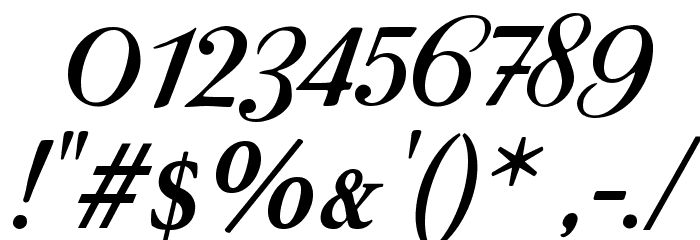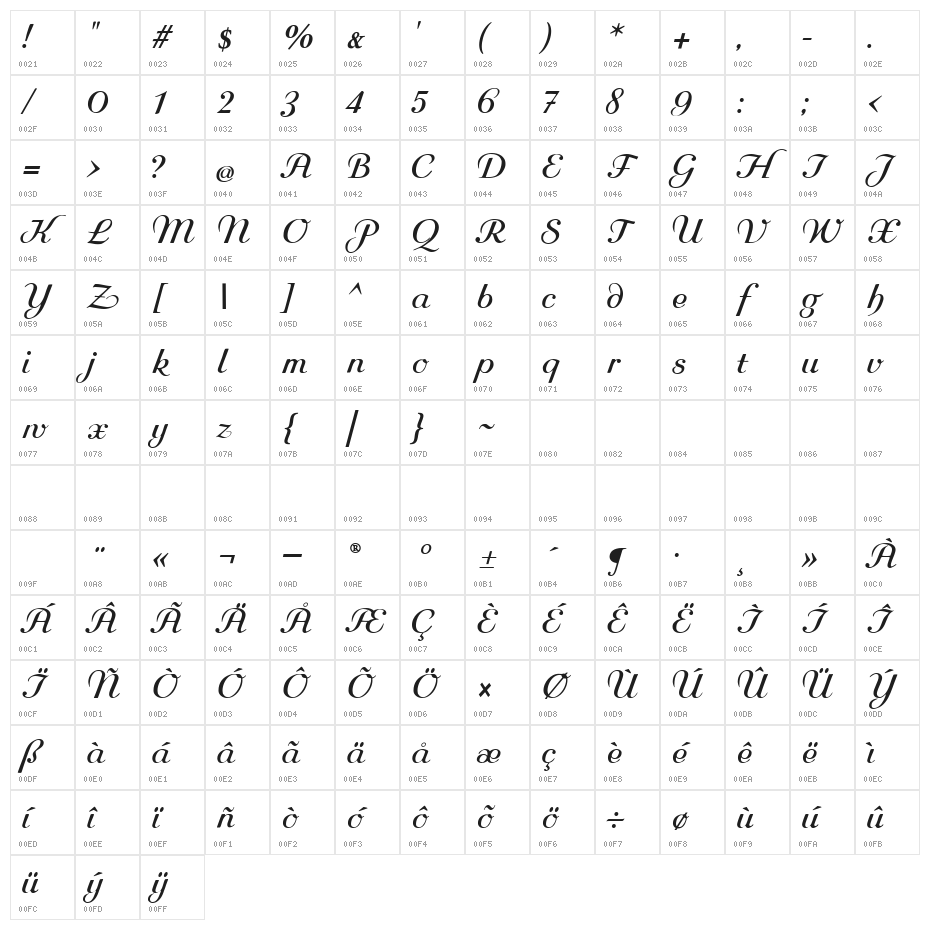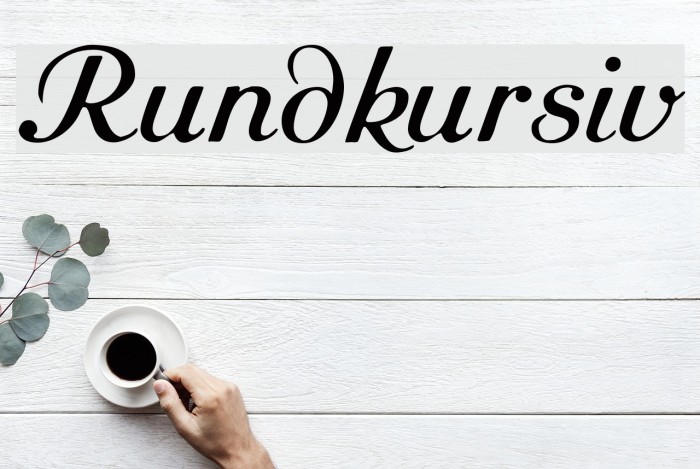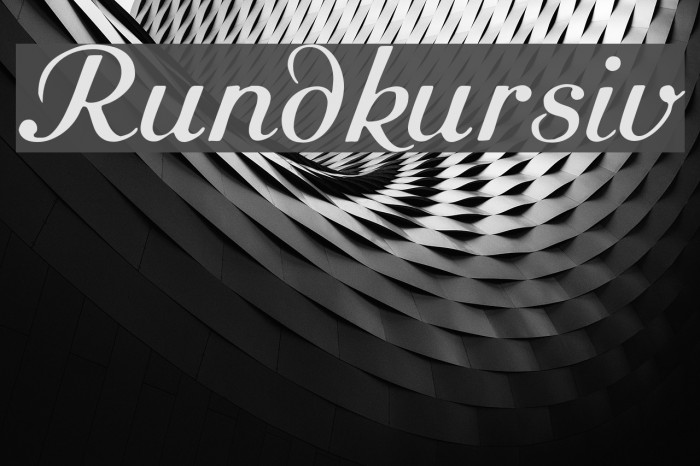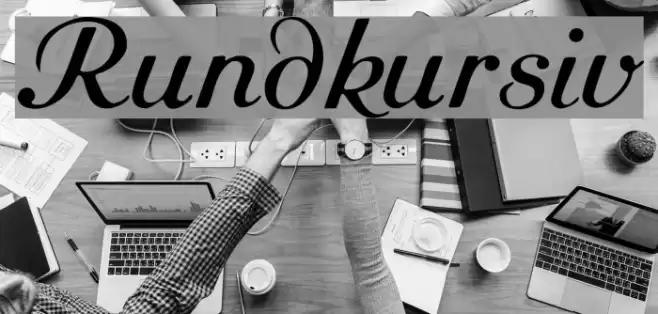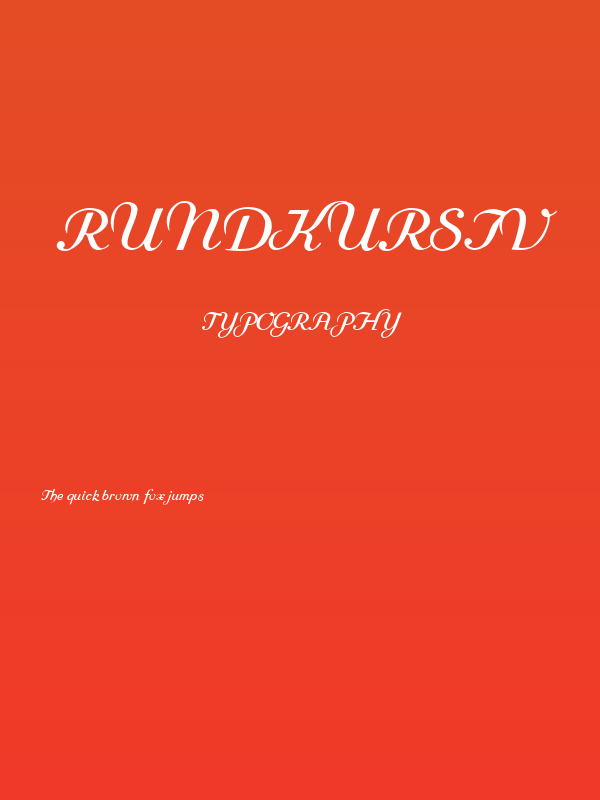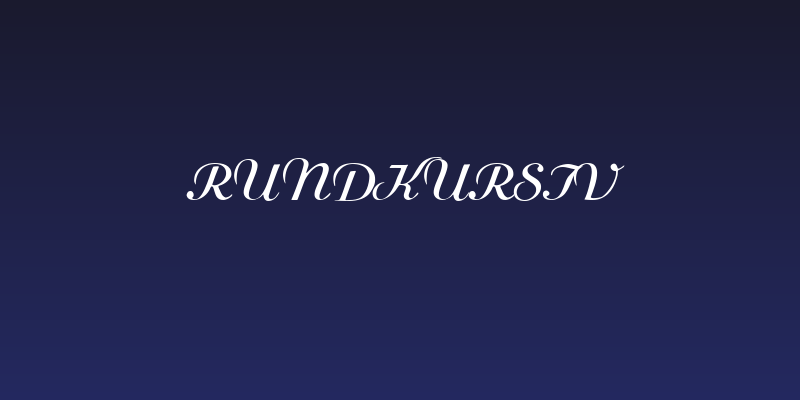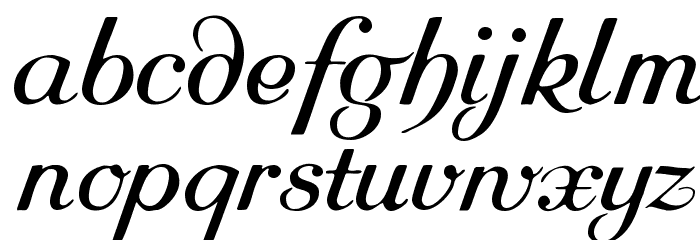
Rundkursiv Font
This elegant script font features a flowing, cursive style with smooth, rounded edges and a slight slant, giving it a sophisticated and graceful appearance. The uppercase letters are ornate, with sweeping curves and flourishes, while the lowercase letters maintain a consistent rhythm and balance. The numerals and special characters are designed to complement the overall aesthetic, maintaining the same fluidity and elegance. This font is ideal for projects that require a touch of class and refinement, such as invitations, branding, and decorative headings.
| Use Case | Headlines, Invitations, Branding |
| Proposed Projects | Ideal for wedding invitations, elegant branding, decorative headings, and luxury product packaging. |